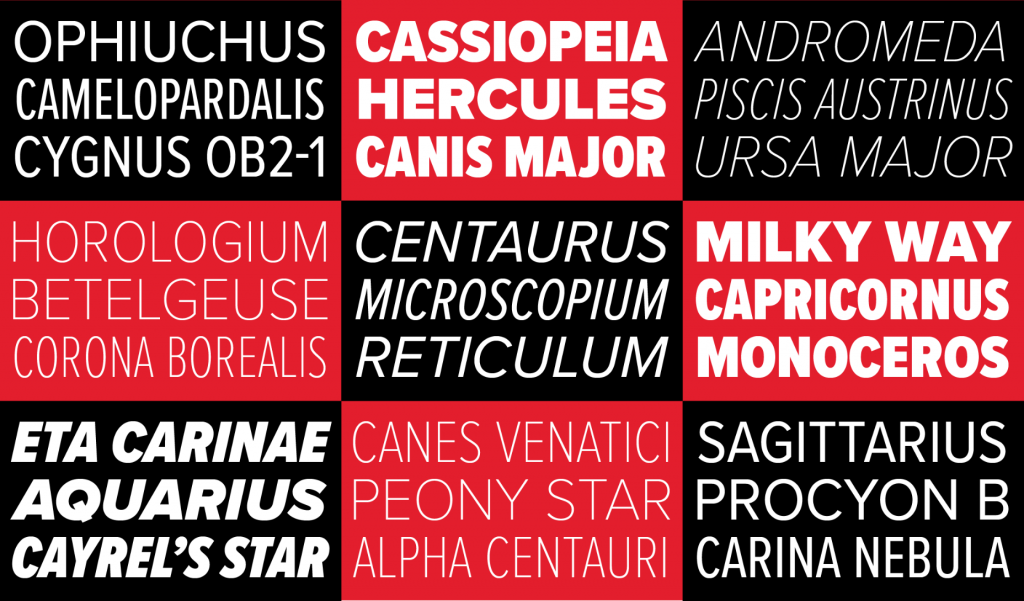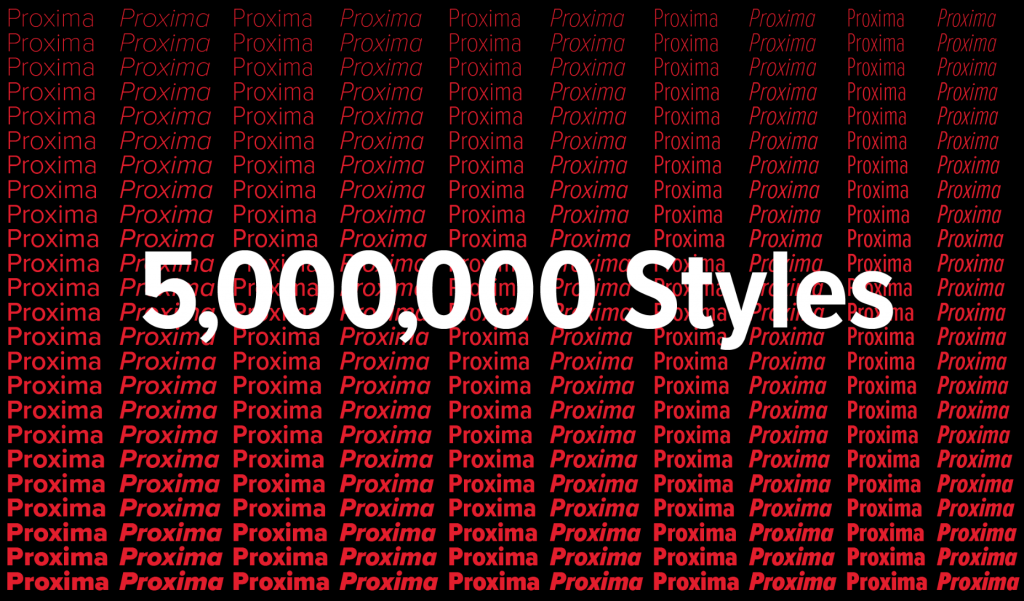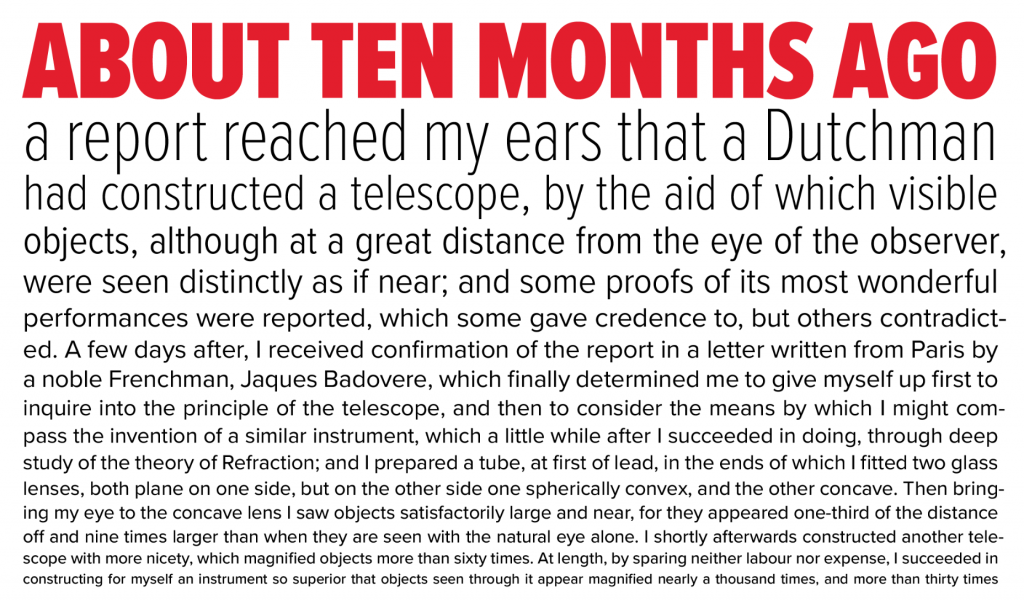
Proxima Vara, a variable font version of the enormously popular Proxima Nova type family, has just been released.
Designers love Proxima Nova for the simplicity of its letterforms, its wonderful rhythm, and its generous x-height that all combine to produce a highly legible, modern typeface — that also happens to be cheaper to deploy than many similar designs.
The variable version allows designers to tweak the weight from 100–900, the width from a condensed 50% to a wide 100%, and the slant from 0–12.5 degrees. In total, there are 5,000,000 styles available.
Because it’s a variable font, Proxima Vara delivers all of those styles in a single file that is only moderately larger than a single Proxima Nova style.
Proxima Nova has been a go-to font for designers for over a decade. Commonality had stripped away some of its shine, but the addition of a new variable edition promises to re-popularise its use.